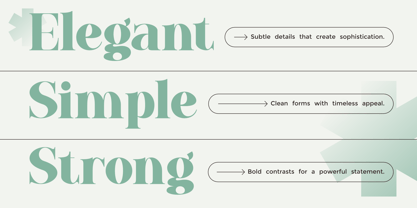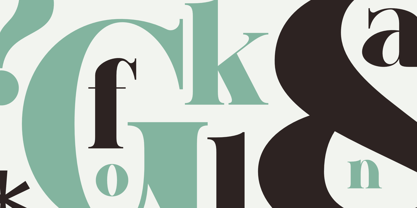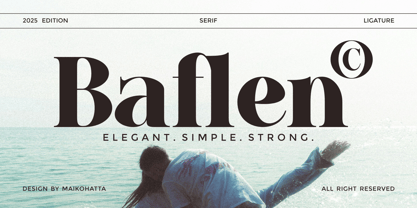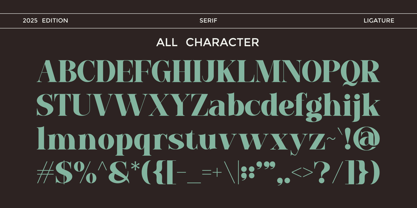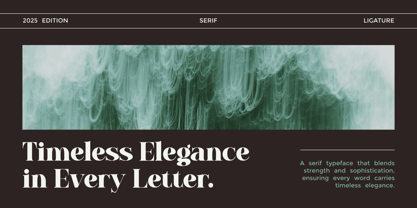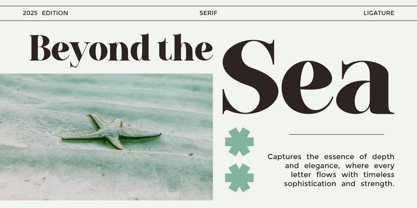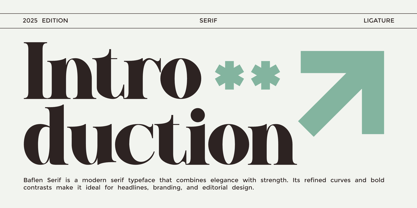
Baflen
by Maikohatta
The Baflen Font Family was designed by Gilang Ternadho and published by Maikohatta. Baflen contains 1 styles.
Baflen - Modern Serif Typeface Baflen is an elegant serif typeface that blends modern sophistication with timeless strength. Its bold letterforms feature graceful curves, high contrast strokes, and refined serifs, creating a sense of both simplicity and power. Designed with attention to balance and proportion, Baflen stands out in branding, editorial, and headline design, offering versatility through its stylish ligatures and distinctive details. Perfect for projects that demand elegance, minimalism, and authority, this font embodies the motto “Elegant. Simple. Strong.”
Designers: Gilang Ternadho
Publisher: Maikohatta
Foundry: Maikohatta